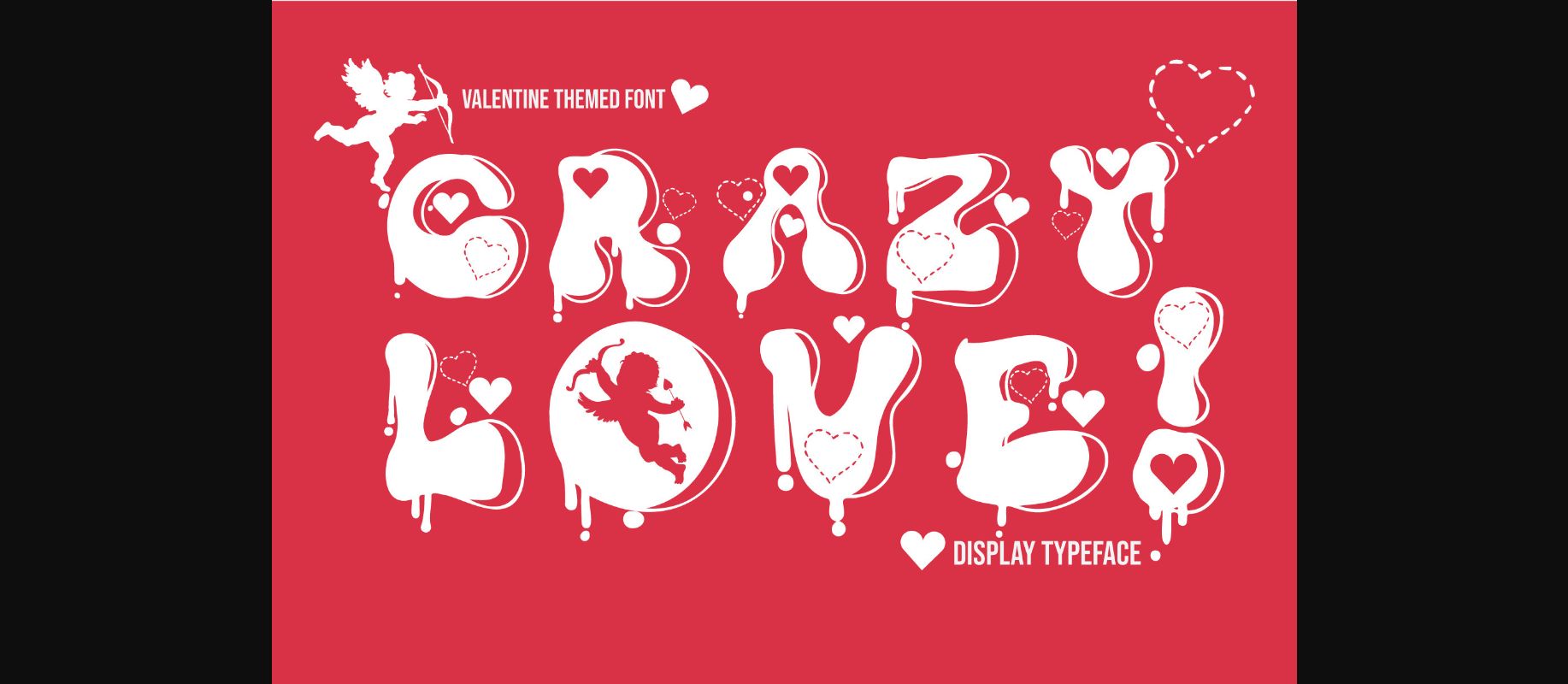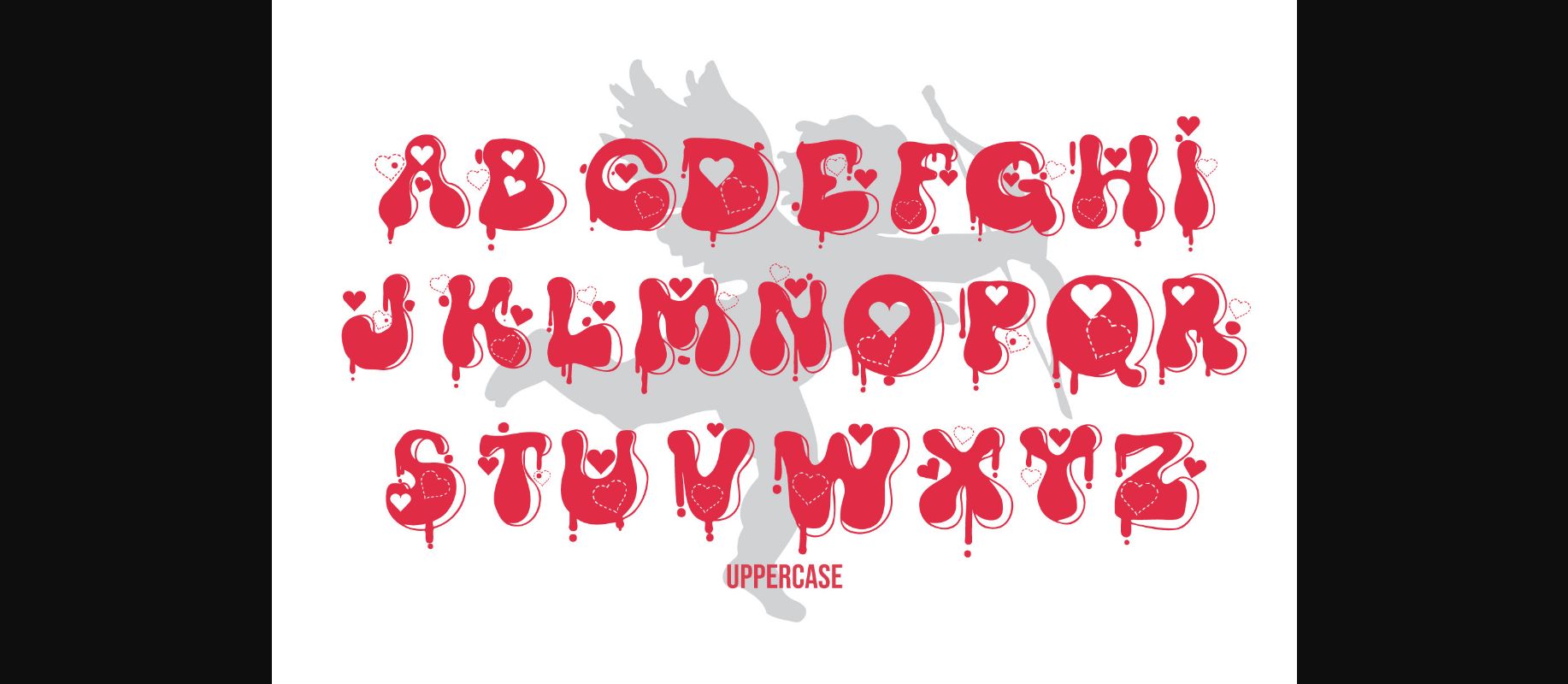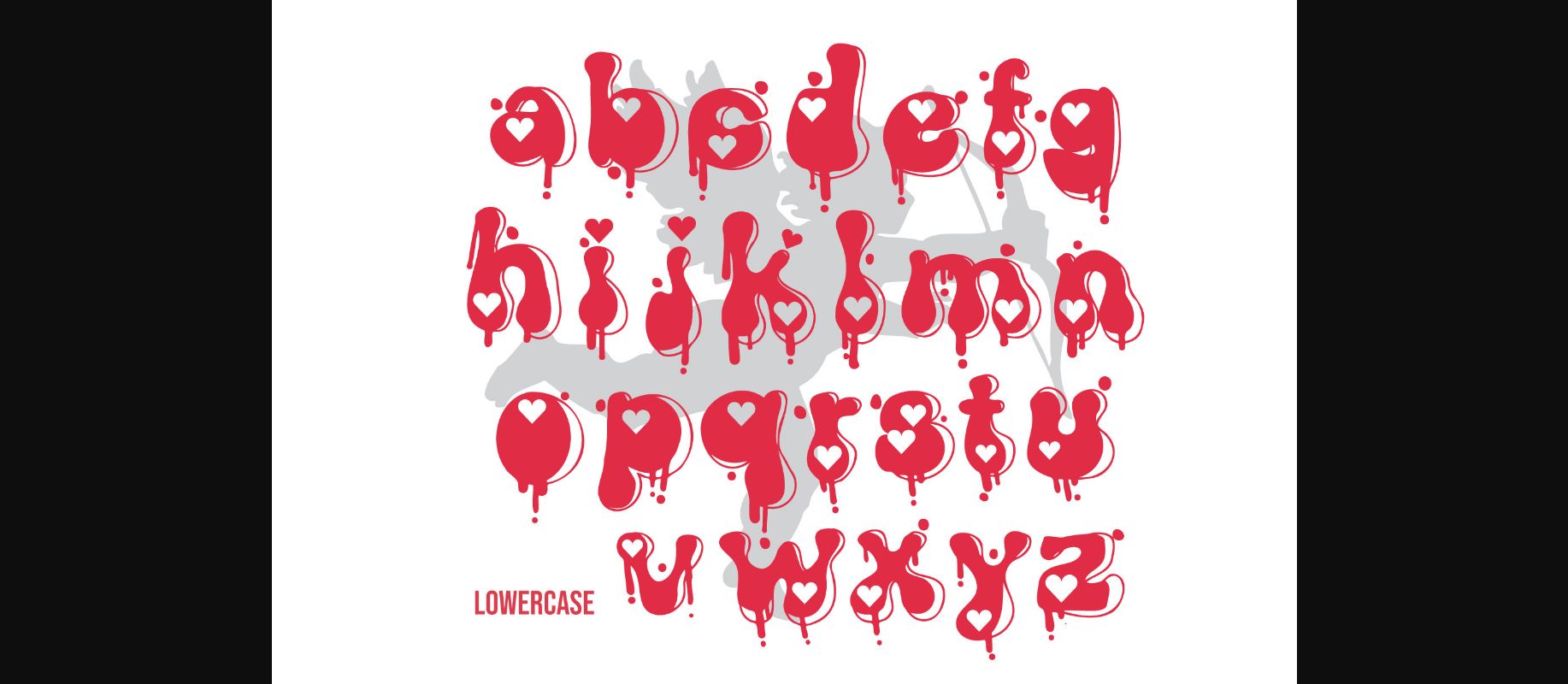
About Crazy Love! Font
Crazy Love! is a simple, fresh, and strong-lettered decorative display font. It has unique characters that will turn any design project into a true stand-out. Add it confidently to your projects, and you will love the results. This font is PUA encoded which means you can access all the glyphs with ease!